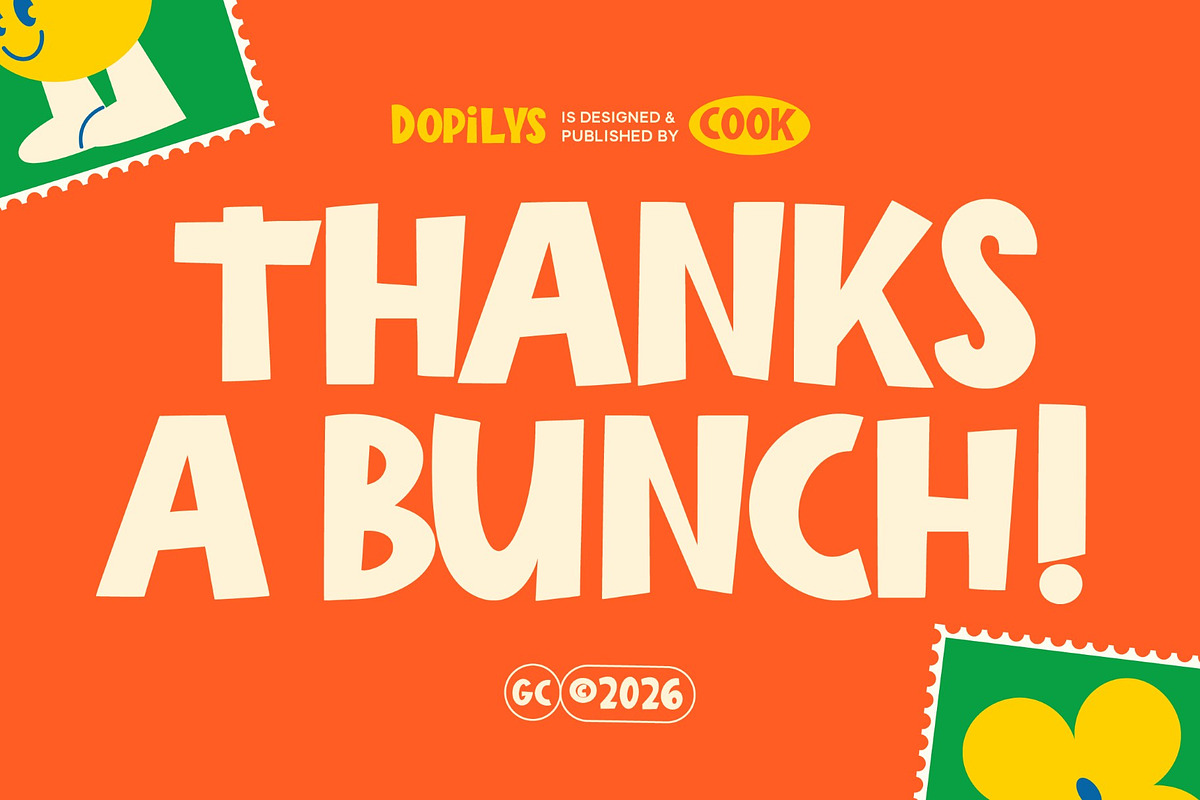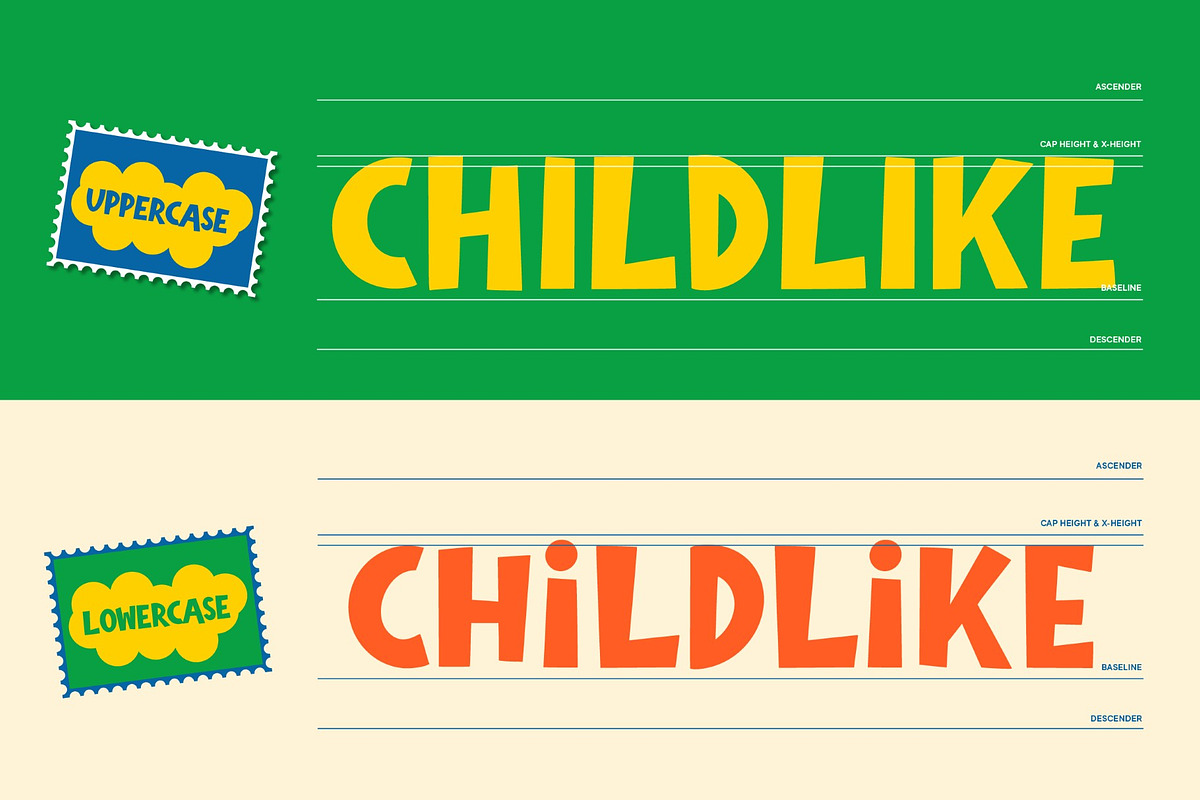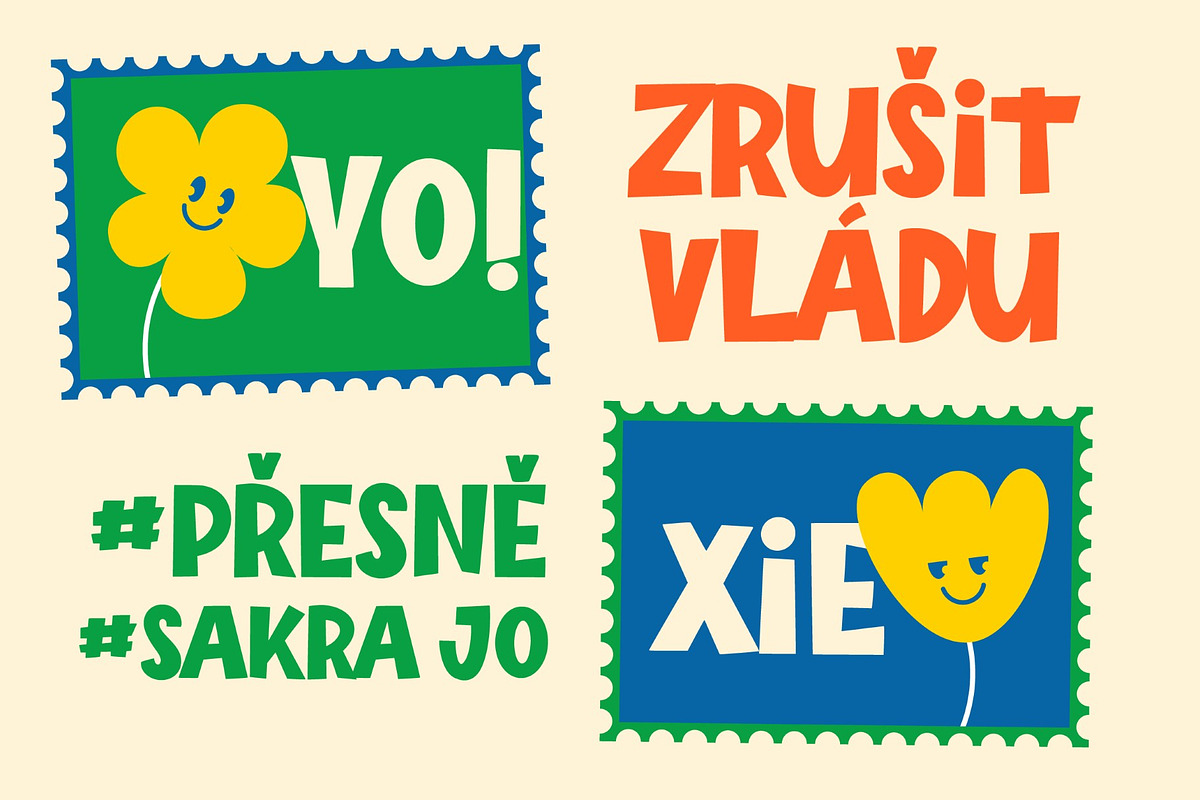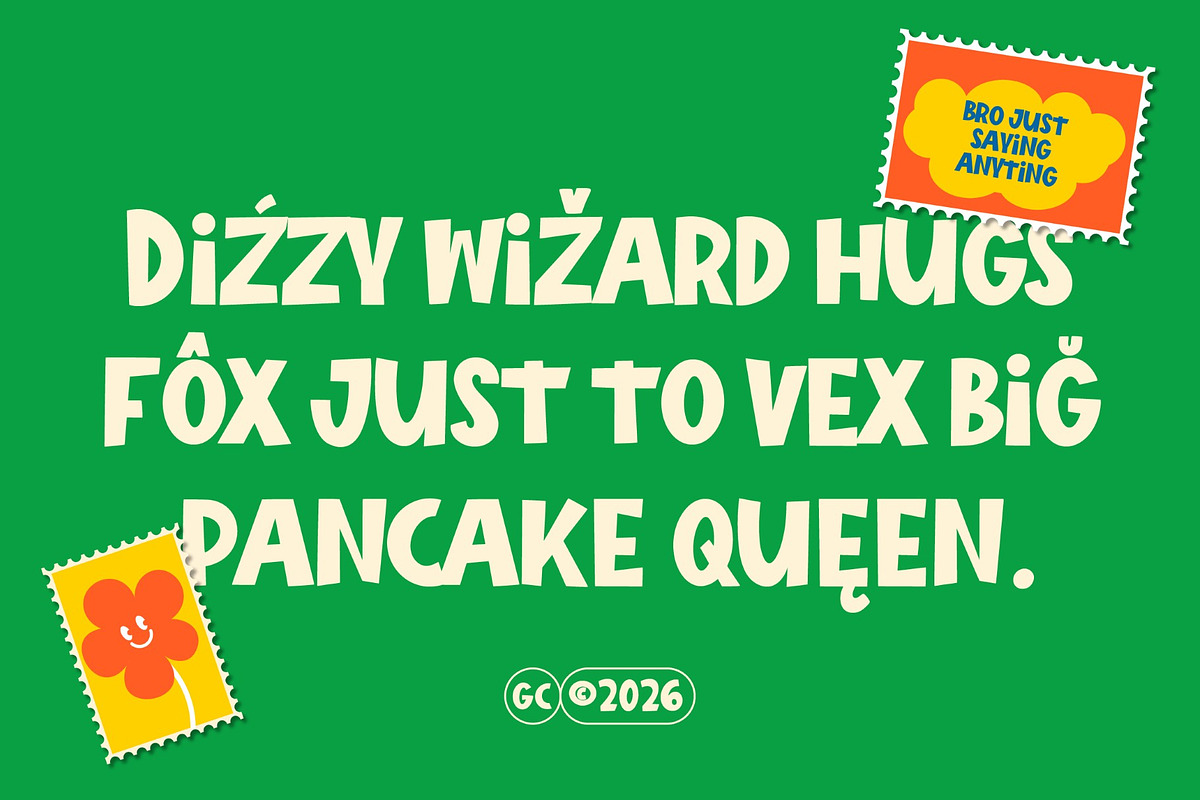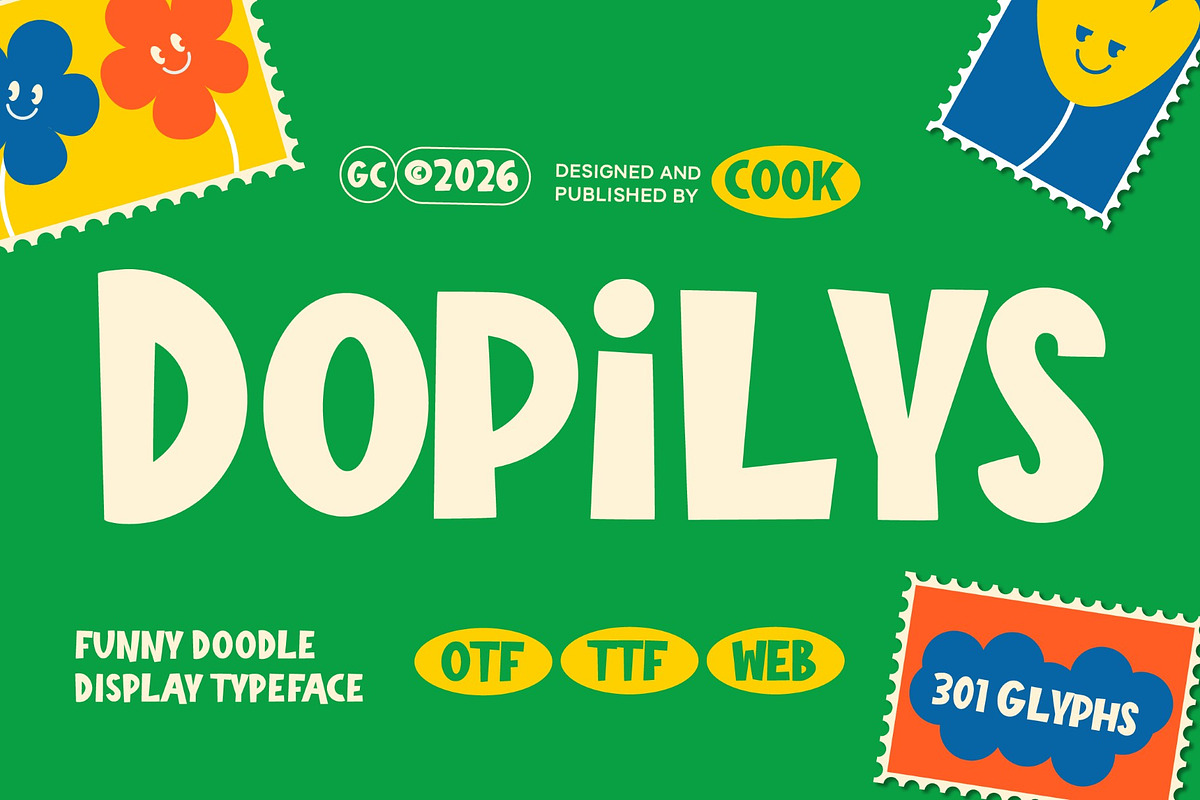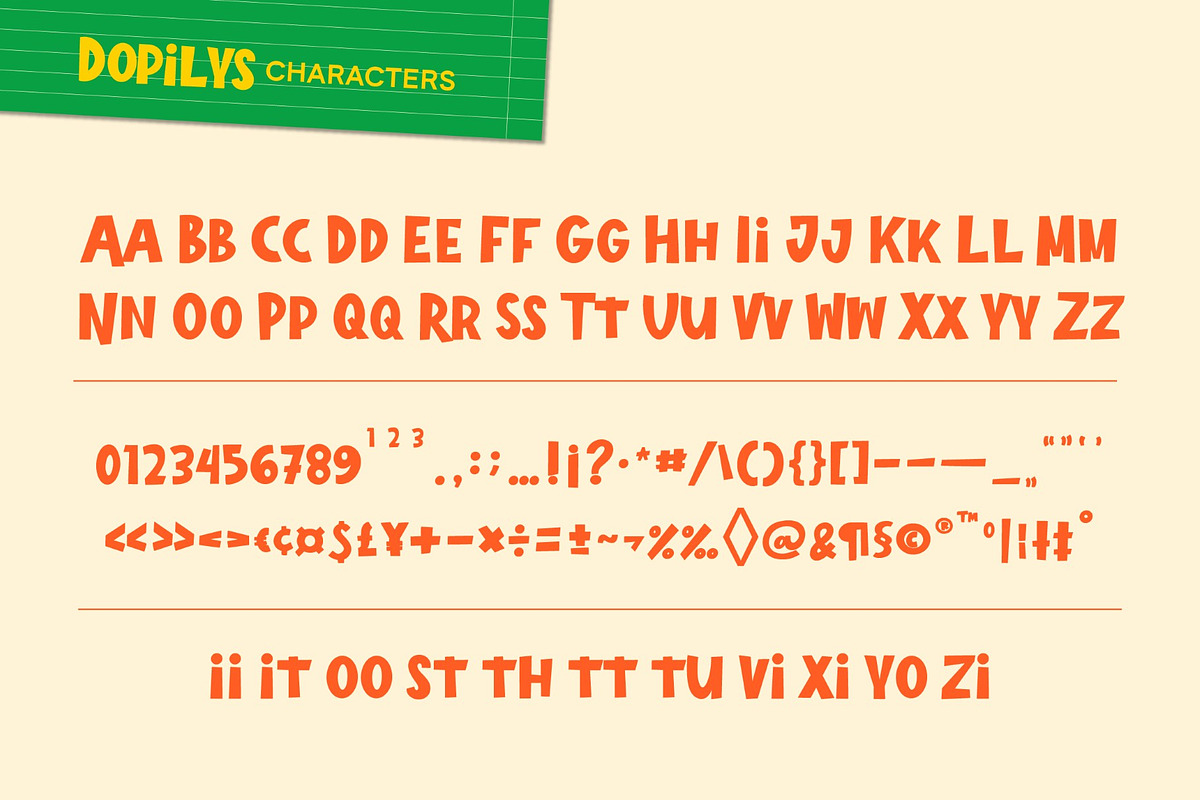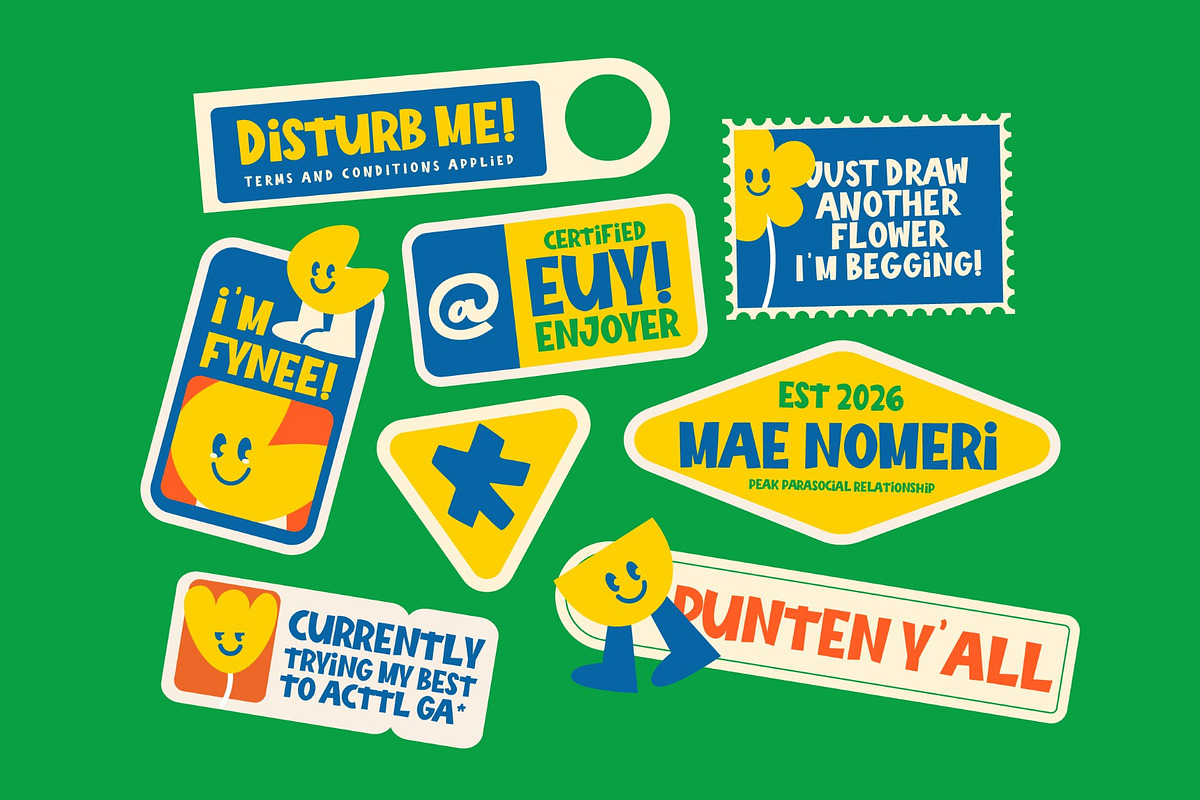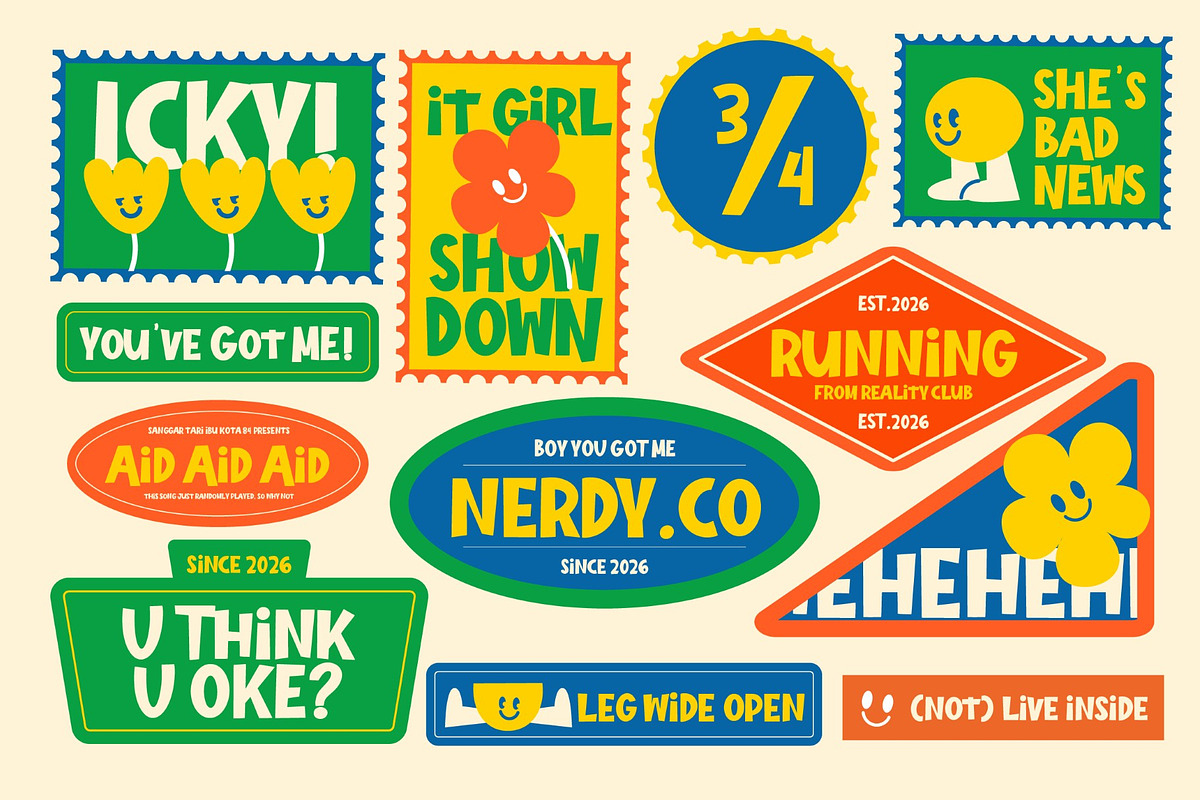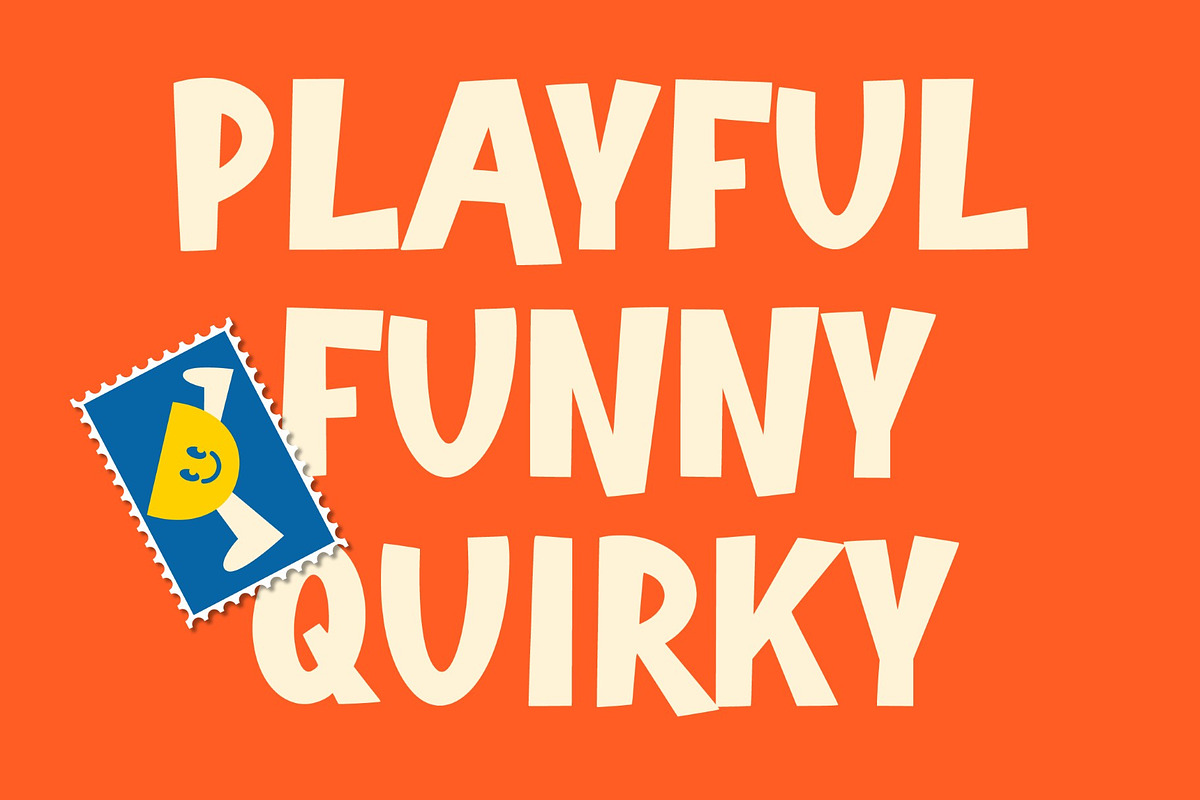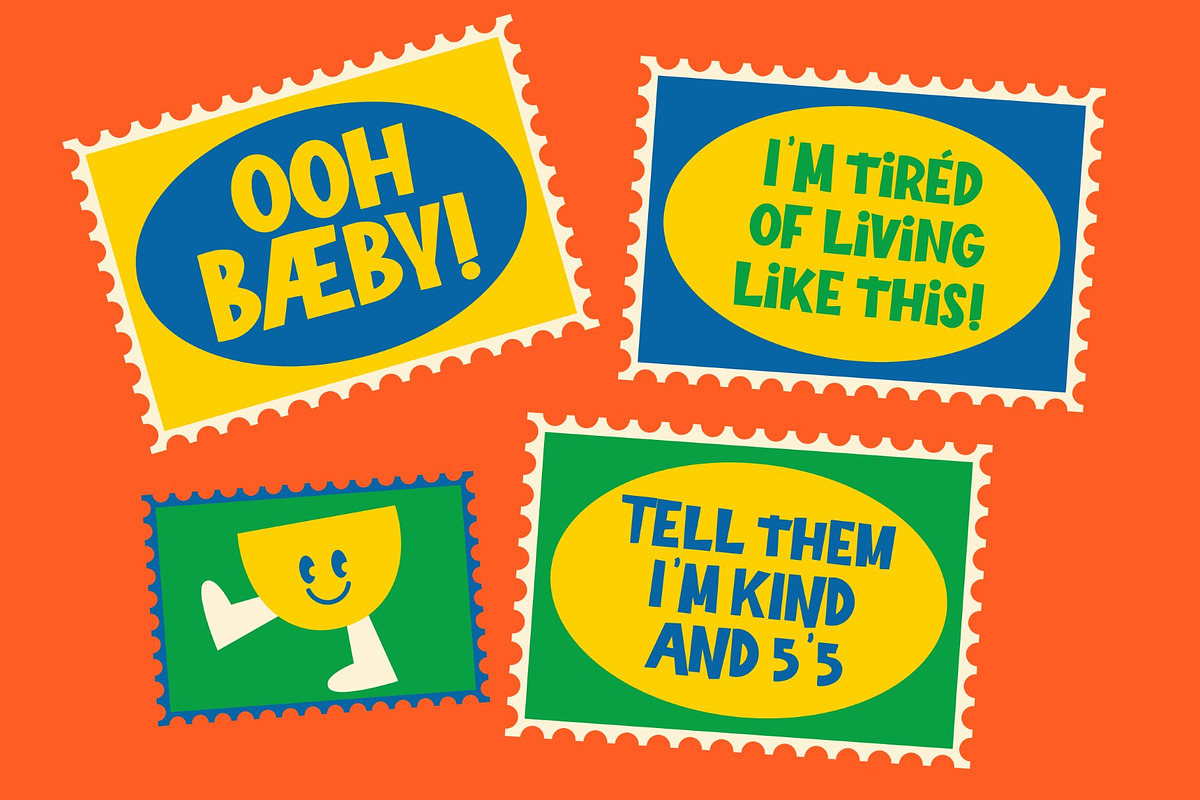
Dopilys
Dopilys is a playful display typeface with bold shapes and quirky character. Inspired by doodles and cheerful kids-style visuals, it brings a fun, friendly vibe to any design. Perfect for children’s projects, playful branding, packaging, posters, headlines, and educational content.
It is perfect for headlines, logotypes, magazines, packaging, quotes, movies, games, cover albums, book covers, and flyers, it's a perfect solution for creating eye-catching designs that stand out in any context.